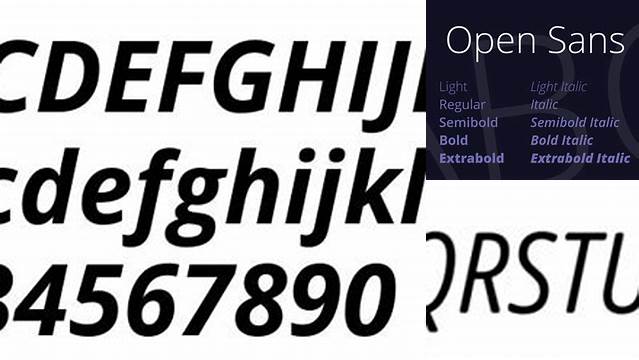
Open Sans Soft Italic is more than just a font; it's a statement. Its soft curves and approachable style make it ideal for everything from website headers and body text to posters and presentations. The italic version adds a touch of elegance and flair, making your text pop without being overly flashy. The Open Sans family is known for its excellent readability, even at smaller sizes, making it a fantastic choice for both print and digital media. This guide will show you how to find the font, download it safely, and use it to create some awesome designs. Whether you're a seasoned designer or a newbie just starting out, this article is for you. We'll cover the basics, the nitty-gritty details, and some handy tips and tricks to help you make the most of this amazing font. Let’s get this party started!
This font's versatility is truly remarkable. Need a font for your website? Open Sans Soft Italic can handle it. Working on a presentation? It's got you covered. Creating marketing materials? Absolutely! Its clean lines and friendly feel make it incredibly adaptable. Plus, the italic style adds a touch of personality without sacrificing readability. You'll find that it's a fantastic choice for emphasizing key phrases or adding visual interest to your text. Think of it as the perfect blend of style and function. You can use it for headings, subheadings, and body text with confidence. It's a workhorse that looks good in any situation! The free download availability means it's accessible to everyone, from hobbyists to professionals. The accessibility of Open Sans Soft Italic is one of its biggest strengths. You don't have to worry about licensing fees or restrictions. You can download it and use it for both personal and commercial projects without any hassle. This makes it an excellent choice for startups, small businesses, and anyone who wants to create high-quality designs without breaking the bank. In the next sections, we'll guide you through the free download process and explore some creative ways to use this great font.
Creative Ways to Use Open Sans Soft Italic in Your Designs
Now that you've got the Open Sans Soft Italic font installed, let's get creative! This font is incredibly versatile, so you can use it in many different ways to make your designs stand out. From website headers and body text to posters and social media graphics, the possibilities are endless. Here are some ideas to get your creative juices flowing. Remember, the key is to experiment and find what works best for your specific project. So let's explore some creative design concepts, guys!
So, there you have it! Open Sans Soft Italic is a fantastic, free font that can take your designs to the next level. With its clean lines, excellent readability, and touch of elegance, it's a versatile choice for various projects. Whether you're creating a website, a social media graphic, or a presentation, this font has you covered. By following the steps and tips outlined in this guide, you can easily download, install, and start using Open Sans Soft Italic in your designs. Remember to always download from reputable sources, install the font correctly, and experiment with different design options. It's an excellent way to make your content more engaging and visually appealing. Embrace the beauty and versatility of this font and let your creativity soar. Now go out there and create some stunning designs! Happy designing, folks!